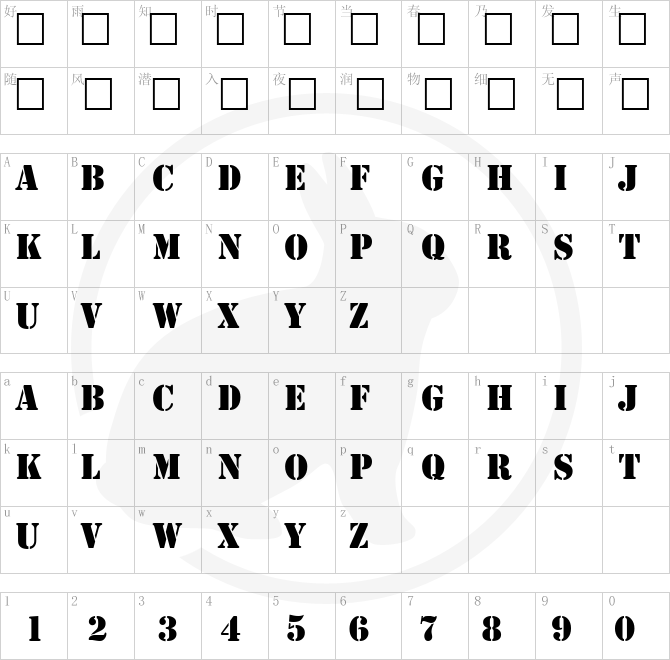
- Font Name:QTMilitary
- Full Name:QTMilitary Regular
QTMilitary-Regular.ttf is a very beautiful artistic font, QTMilitary-Regular.ttf is widely used in the design and printing of various books and pictures,QTMilitary-Regular.ttf has a strong visual impact,QTMilitary-Regular.ttf is a commonly used font in newspapers, magazines and books, and is used in posters, e-commerce Poster design, store design, logo design, font design and other fields.QTMilitary-Regular.